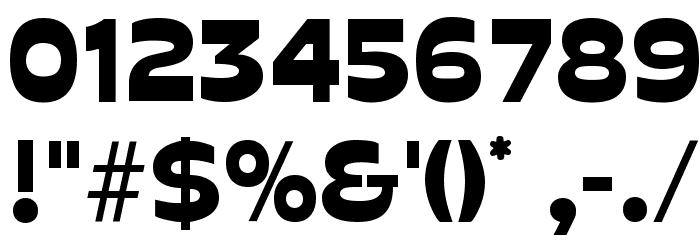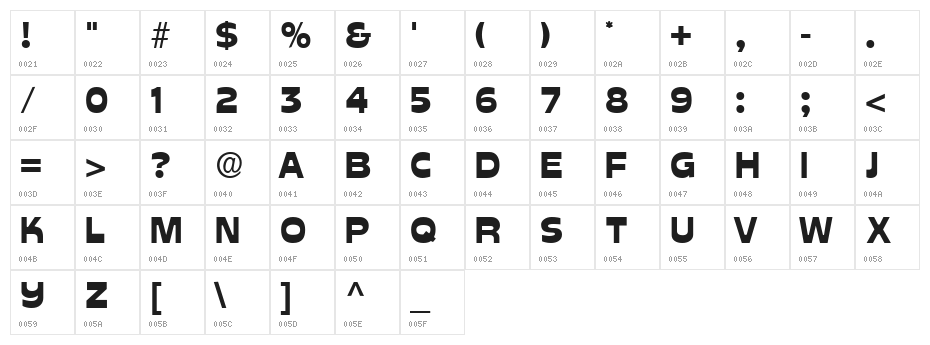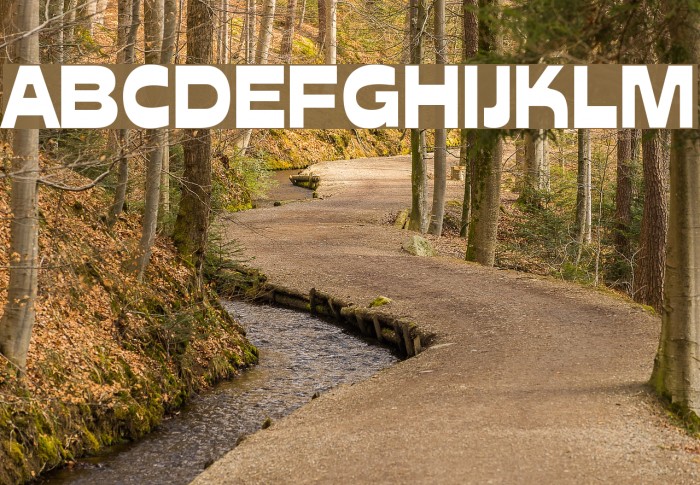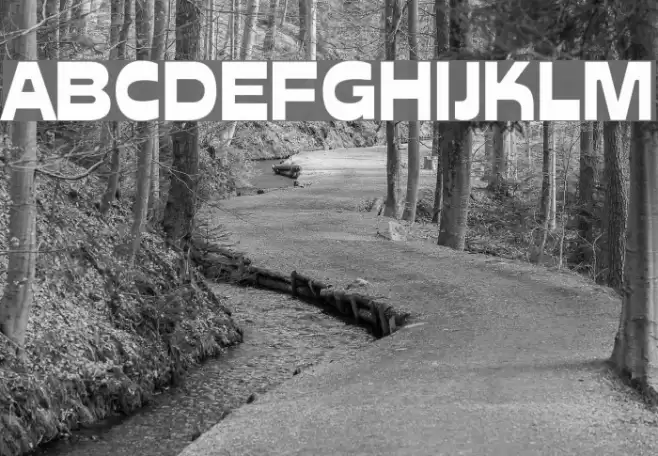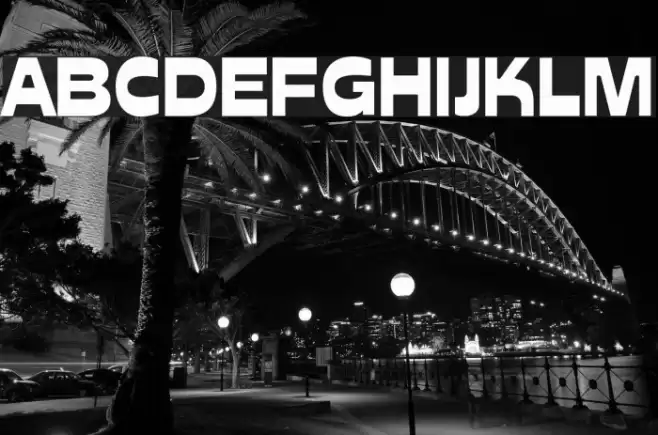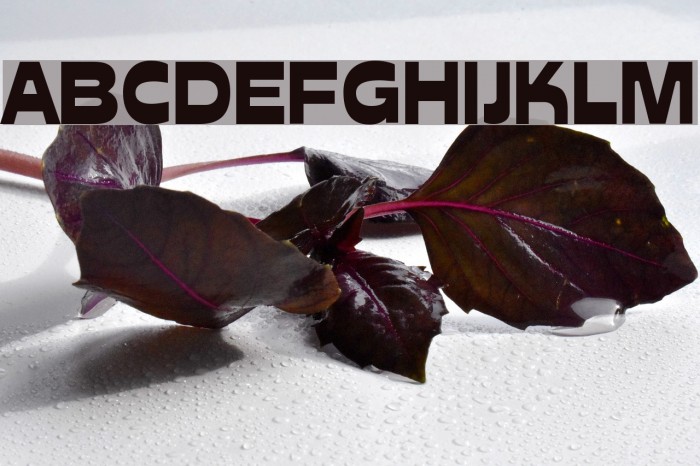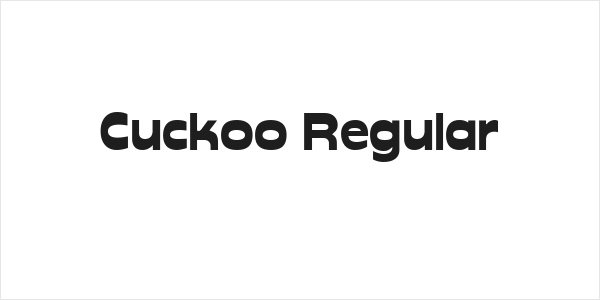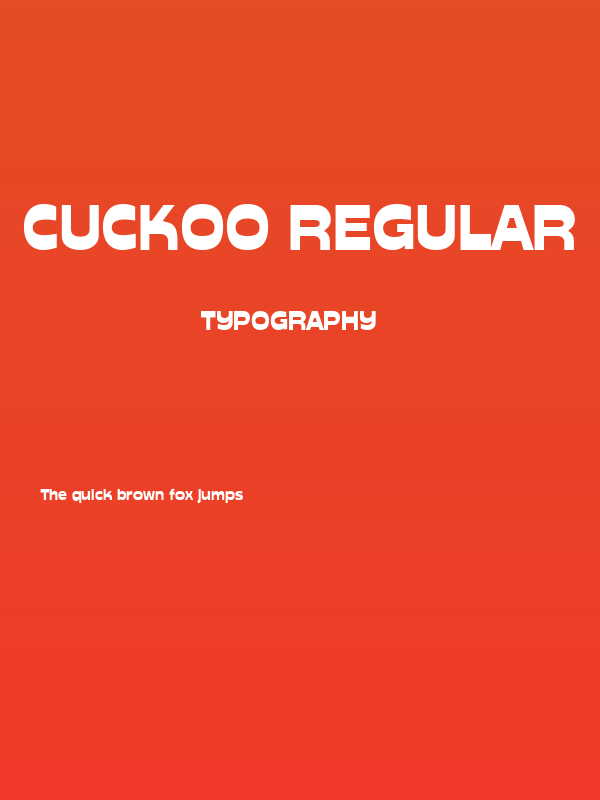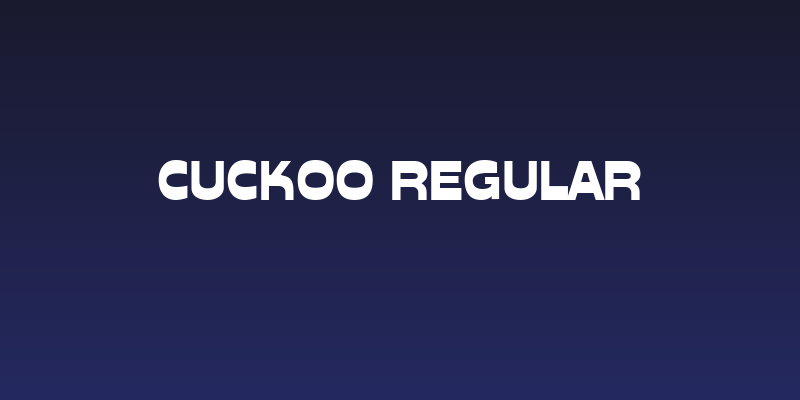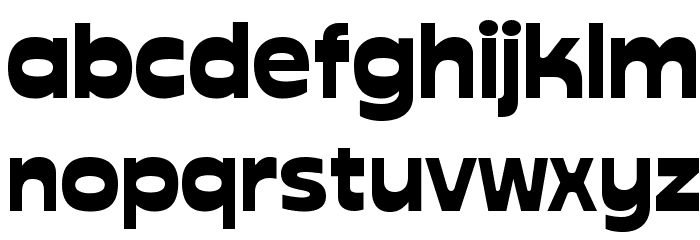
Cuckoo Regular Font
Cuckoo Regular Description
This font features bold, geometric letterforms with a strong presence. The characters are uniformly thick, providing a sense of stability and modernity. The uppercase letters are particularly striking, with a consistent height and width that creates a cohesive look. The lowercase letters maintain the same boldness, offering a seamless transition between cases. Numbers and special characters are equally robust, ensuring readability and impact. The overall design is clean and straightforward, making it suitable for a variety of applications where clarity and emphasis are needed.
| Proposed Projects | Ideal for branding, headlines, posters, and any design requiring a modern, impactful typeface. |